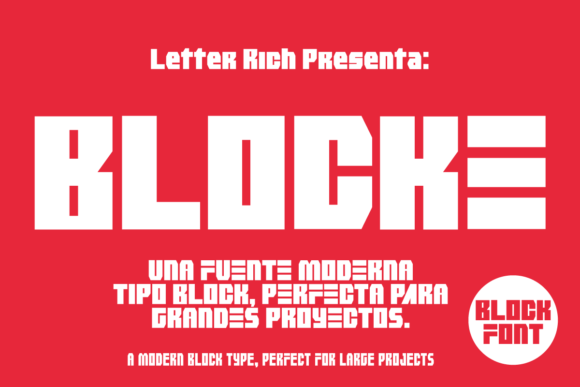
The Blocke Font: A Modern Marvel for Large-Scale Designs
I’ll never forget the time I was working on a giant billboard design project, and my client asked me to create a bold, eye-catching title that would stand out from afar. I scoured the internet for the perfect font, and that’s when I stumbled upon Blocke. This modern block font has been a game-changer for me ever since. In this article, I’ll share my experience with Blocke, its features, and how to make the most of it in your designs.
What I Love About Blocke Font
Blocke is a stunning font that boasts a clean, minimalist feel ✨. Here are some of the things I love about it:
• ✅ Perfect for large-scale projects: Blocke is designed for big projects like billboards, poster art, signage, packaging, headlines, and logos.
• ✅ Unique and striking: The font’s block letter design makes it stand out and grab attention.
• ✅ Versatile: Blocke can be used for various design projects, from artistic posters to commercial signage.
• ✅ Easy to read: Despite its bold design, Blocke is surprisingly easy to read, even from a distance.
While Blocke is an amazing font, it’s not without its limitations 🤔. Here are a few things to keep in mind:
• ⚠️ Not suitable for small sizes: Due to its narrow counter, Blocke can lose its definition when used in small sizes. Avoid using it for body text or small captions.
• ⚠️ Limited use in digital media: While Blocke is perfect for print designs, it may not be the best choice for digital media, such as website headers or social media graphics, where legibility at small sizes is crucial.
The Story Behind Blocke Font
Blocke was designed with the intention of creating a modern, block-style font that’s perfect for large-scale designs. Its creator aimed to craft a font that’s both clean and striking, making it suitable for a wide range of projects. While the exact story behind Blocke’s creation is unclear, its design is undoubtedly influenced by modern typography trends and the need for bold, attention-grabbing fonts.
Q: What is Blocke font best used for?
A: Blocke is perfect for large-scale designs like billboards, poster art, signage, packaging, headlines, and logos.
Q: Can I use Blocke for body text?
A: No, Blocke is not suitable for body text due to its narrow counter and bold design. It’s best used for headings and titles.